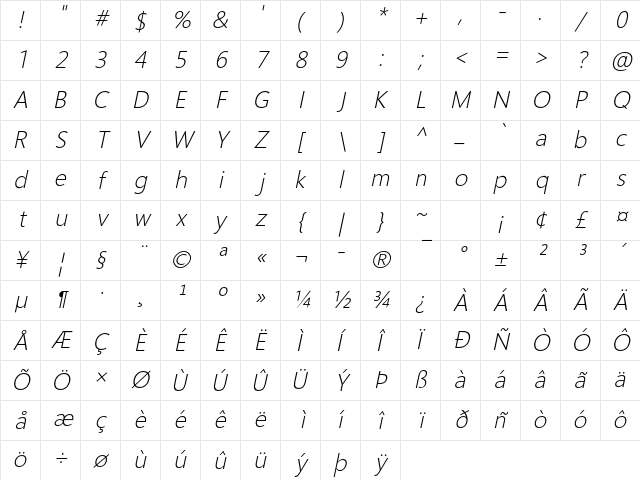
Homizio Nova Light Italic
Foundry: Alvaro Thomaz Fonts
Designer: Alvaro Thomaz
Design Context for Homizio Nova
Homizio Nova is a composed and adaptable typeface that performs quietly and consistently across a wide range of design contexts. The slanted form adds forward momentum and visual energy. Its slender proportions lend an understated elegance to any composition.
Pro Tip: Use Homizio Nova for emphasis, pull quotes, and subheadings where its slanted energy can add rhythm to the layout.
Who designed the Homizio Nova Light Italic font?